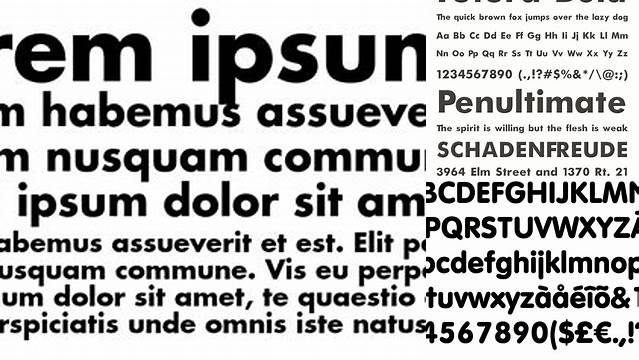
Futura Round STD Bold Font: Free Download And Usage Guide
Hey guys! Are you on the hunt for a font that screams modern elegance with a touch of warmth? Look no further! The Futura Round STD Bold font might just be your holy grail. It's a typeface that effortlessly blends geometric precision with a friendly, rounded finish, making it a versatile choice for a wide array of design projects. Whether you're crafting a sleek logo, designing a captivating website, or putting together eye-catching marketing materials, Futura Round STD Bold can add that special something to your work. In this comprehensive guide, we'll dive deep into what makes this font so special, where you can snag it for free, and how to use it effectively to elevate your designs. So, buckle up and let's get started!
What Makes Futura Round STD Bold So Special?
When we talk about Futura Round STD Bold, we're not just talking about another font; we're talking about a legacy of design excellence. This font is a member of the esteemed Futura family, originally designed by Paul Renner in 1927. Futura itself is a geometric sans-serif typeface that draws inspiration from the Bauhaus design movement, which emphasized simplicity, functionality, and clean lines. Futura Round STD Bold takes these core principles and infuses them with a softer, more approachable feel. The rounded terminals give it a warmer, more human touch compared to the sharper, more angular edges of the original Futura. This subtle difference makes a world of difference in how the font is perceived, making it ideal for projects that need to convey both modernity and friendliness.
One of the key characteristics of Futura Round STD Bold is its legibility. The clean, uncluttered letterforms make it easy to read in a variety of sizes and contexts. This is crucial for everything from body text in brochures to headlines on websites. The bold weight adds even more visual impact, ensuring that your message stands out. Think about it – a headline in Futura Round STD Bold commands attention without being overly aggressive. It's assertive yet inviting, making it a fantastic choice for brands that want to project confidence and approachability.
Another aspect that makes Futura Round STD Bold so special is its versatility. It plays well with other fonts, making it easy to create compelling typographic hierarchies. Pair it with a classic serif font for a sophisticated contrast, or use it alongside a lighter weight of the Futura family for a cohesive and harmonious look. The possibilities are truly endless. Imagine using Futura Round STD Bold for your website headers, coupled with a clean serif font like Garamond for the body text. The combination would exude a sense of modern elegance and readability. Or, picture a logo designed with Futura Round STD Bold, paired with a lighter weight for the tagline – a perfect blend of boldness and subtlety.
Furthermore, Futura Round STD Bold is a timeless font. Its design principles are rooted in classic typography, which means it doesn't fall prey to fleeting trends. This makes it a safe and stylish choice for projects that need to stand the test of time. You wouldn't want to choose a font that looks dated in a few years, especially for branding materials or long-term projects. Futura Round STD Bold, with its enduring appeal, ensures that your designs remain fresh and relevant for years to come.
So there you have it, folks! Futura Round STD Bold is a font that truly lives up to its reputation. Its blend of geometric precision and rounded warmth makes it a versatile and timeless choice for a wide range of design projects. Whether you're crafting a brand identity, designing a website, or creating marketing materials, Futura Round STD Bold can help you communicate your message with clarity and style. Remember to download from reputable sources, pay attention to licensing, and experiment with different ways to use this fantastic font in your designs. Happy designing, and may your typography always be on point!